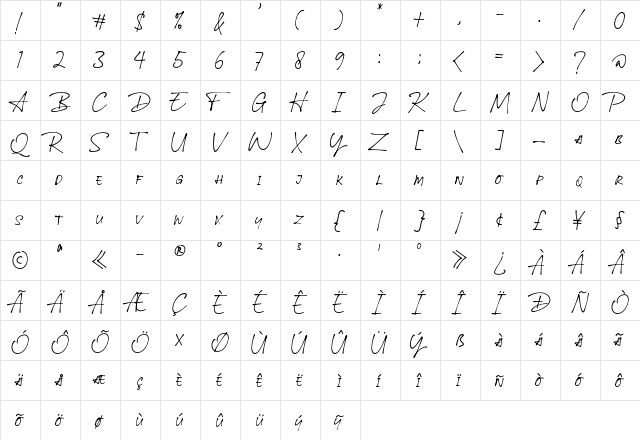
Ballpoint Signature Regular
| Designer | Agam Rahmadan |
Design Context for Ballpoint Signature Typeface
Ballpoint Signature is a composed and adaptable typeface that performs quietly and consistently across a wide range of design contexts.